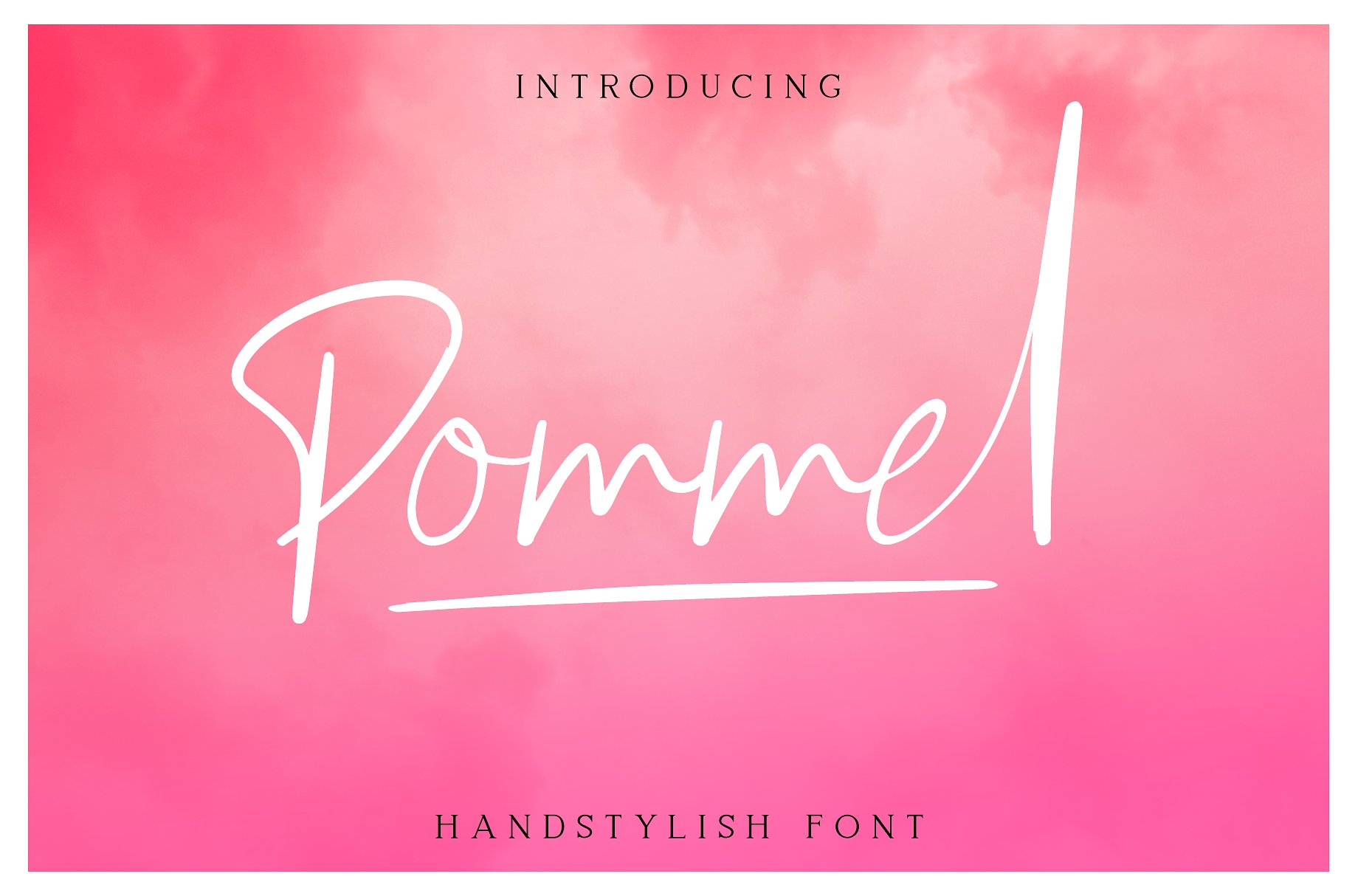
Pommel Handstylish
Pommel Handstylish Font
Pommel – Handstylish Font is an handwritten script font based on the expression of real handwriting. Pommel – Handstylish Font will work perfectly for fashion, e-commerce brands, trend blogs, wedding boutiques or any business that wants to appear upscale and chic.
It does not have multilingual, full punctuation, and alternates alphabet.